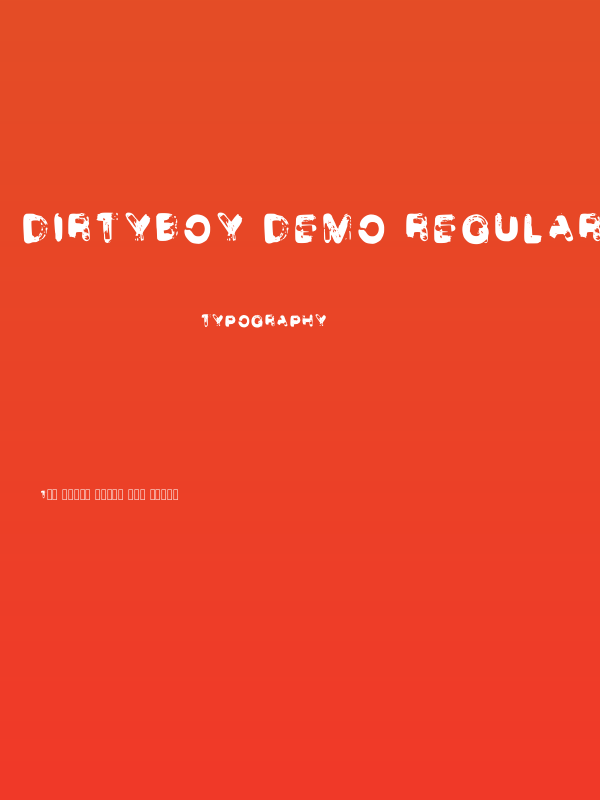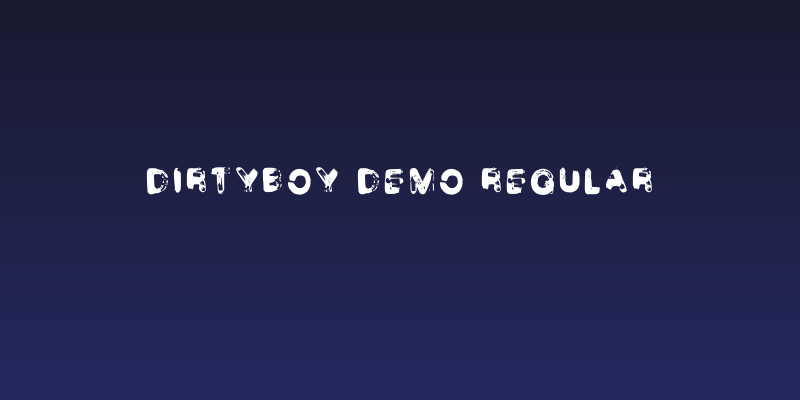
Dirtyboy Demo Regular Font
Dirtyboy Demo Regular Description
This font features a rugged, distressed appearance, giving it a grungy and urban feel. The uppercase letters are bold and heavily textured, with irregular edges and a worn-out look that suggests a sense of decay or erosion. This style is reminiscent of street art or graffiti, making it ideal for projects that require a bold, edgy aesthetic. The font's unique character is enhanced by its uneven surface, which adds depth and visual interest. It's perfect for creating eye-catching headlines, posters, or branding materials that need to stand out with a rebellious or alternative vibe.
| Overall Style | Grunge, Urban, Edgy |
| Use Case | Headlines, Posters, Branding |
| Proposed Projects | Ideal for posters, album covers, streetwear branding, or any project needing an edgy, rebellious look. |